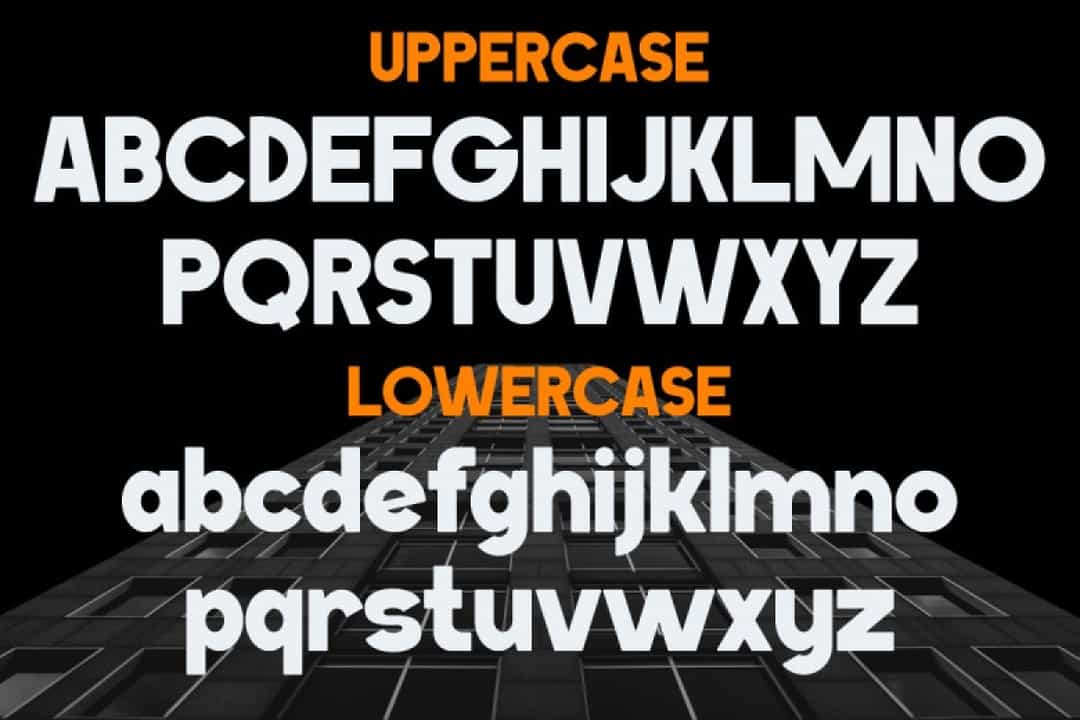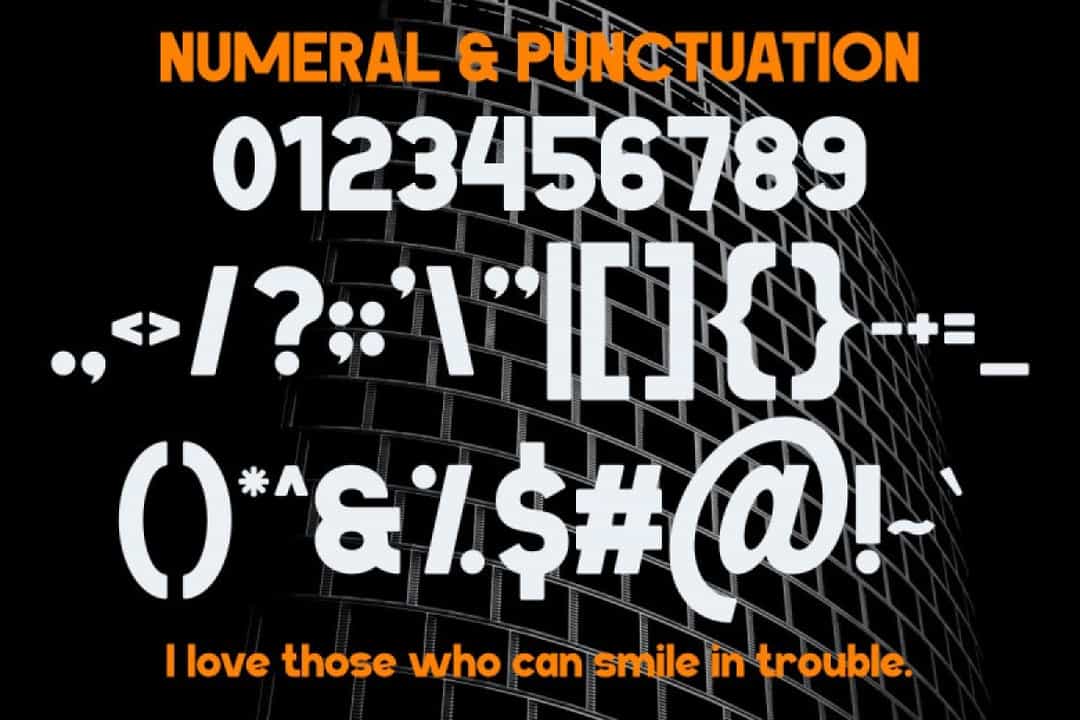
Equali Sans Font is perfect for creating impactful headlines and logos in graphic design projects, adding professionalism and modernity. Equali is a flexible font which brings both professionalism and modernity to any design project.